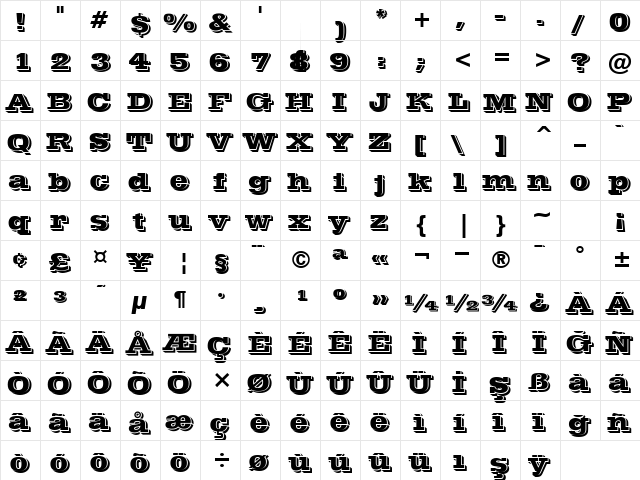
00590 Regular
Design Context for 00590 Typeface
00590 is a composed and adaptable typeface that performs quietly and consistently across a wide range of design contexts.